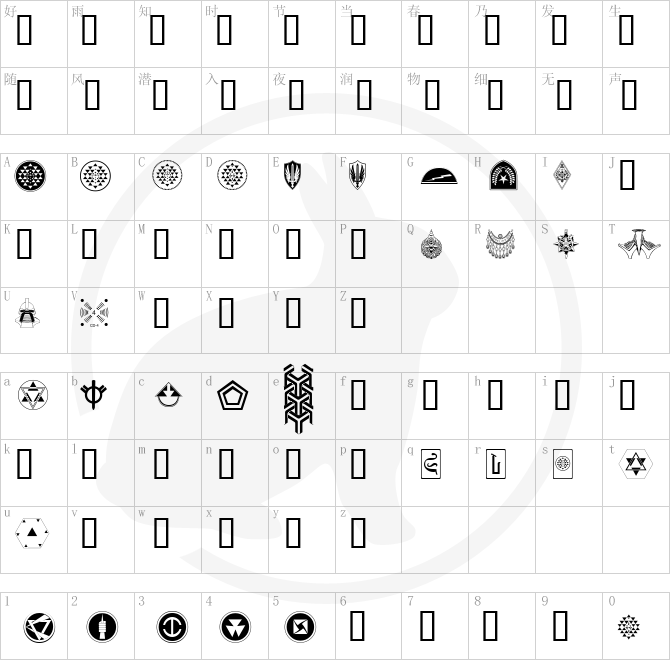
- Font Name:GalacticaBats
GalacticaBats.ttf is a very beautiful artistic font, GalacticaBats.ttf is widely used in the design and printing of various books and pictures,GalacticaBats.ttf has a strong visual impact,GalacticaBats.ttf is a commonly used font in newspapers, magazines and books, and is used in posters, e-commerce Poster design, store design, logo design, font design and other fields.GalacticaBats.